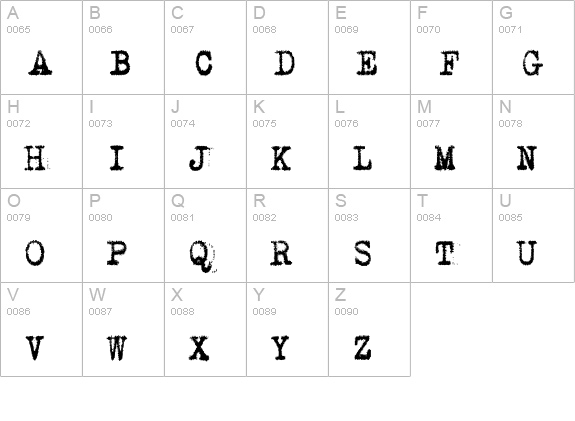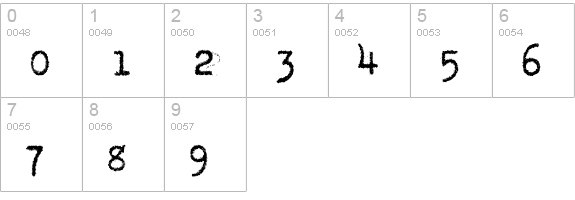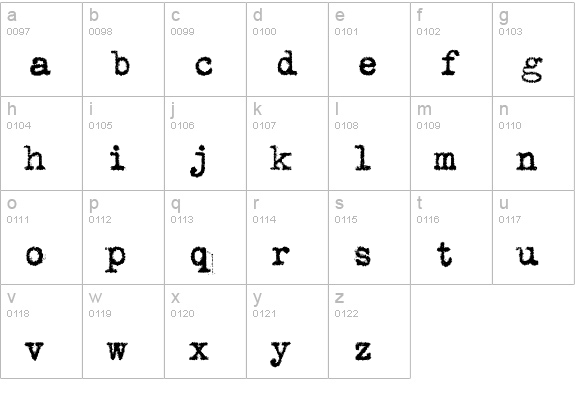
VintageTypewriter SmithUpright Font Details
VintageTypewriter SmithUpright font is a timeless and classic typeface that harkens back to the golden age of typewriters. Its elegant and sophisticated design captures the essence of vintage typewriters, with its distinct and charmingly imperfect letterforms. This font exudes a sense of nostalgia and authenticity, perfect for when you want to add a touch of old-world charm to your design projects. Whether you're creating invitations, posters, logos, or any other creative endeavor, VintageTypewriter SmithUpright font will transport your audience to a bygone era. What sets VintageTypewriter SmithUpright font apart is not only its exquisite aesthetics, but also its versatility. It is incredibly legible and ideal for both display and body text, ensuring that your message is communicated clearly and effectively. And the best part? VintageTypewriter SmithUpright font is absolutely free! You can freely download it at FontsMarket.com, your go-to source for high-quality fonts. No need to worry about breaking the bank or searching endlessly for the perfect typeface - VintageTypewriter SmithUpright font is just a few clicks away. So why wait? Embrace the elegance and nostalgia of vintage typewriters with VintageTypewriter SmithUpright font. Download it now and let your creativity flow, as you effortlessly capture the essence of a bygone era in your designs.